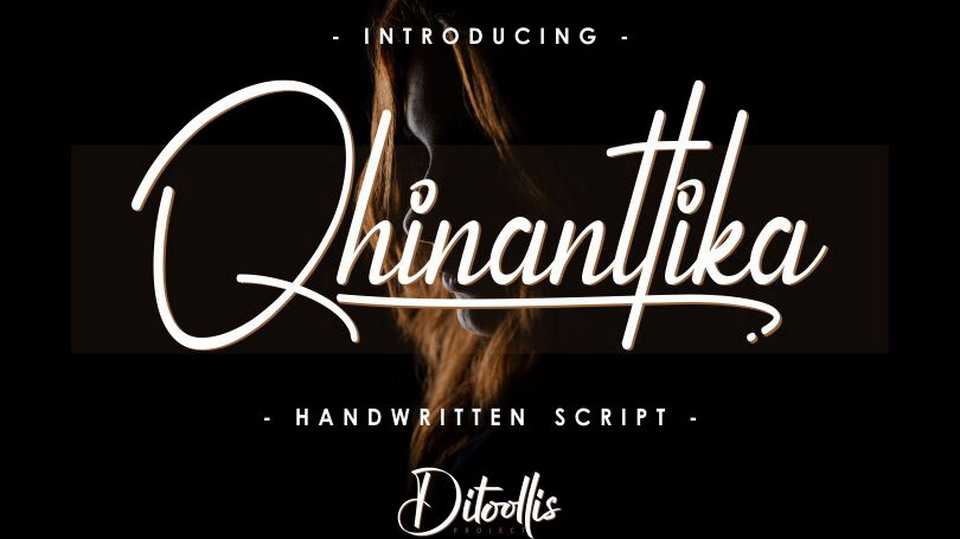
Download Qhinantikka, a modern casual handwritten script for any kind of designs. Suitable for business cards, logos, covers, social media, invitations, etc.
Designer: Ditoollis Project